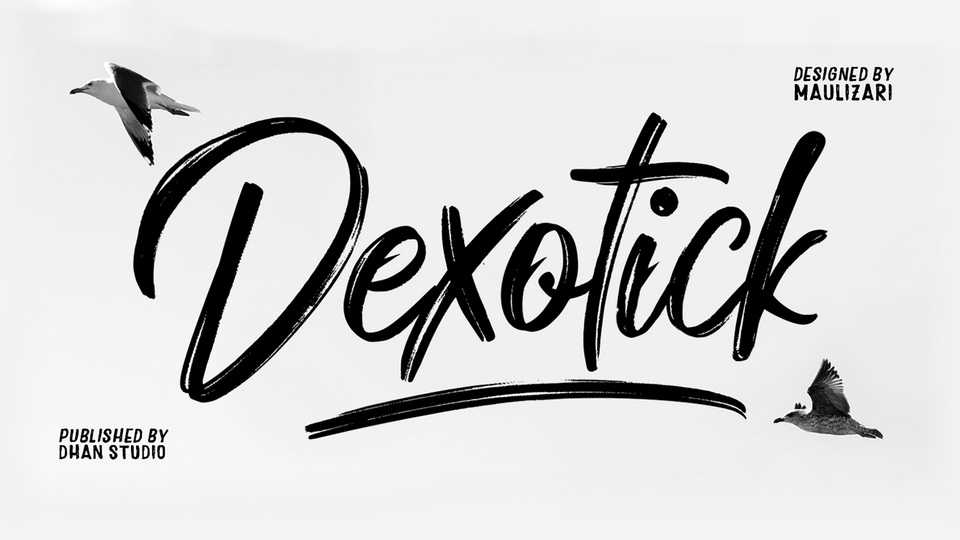
Download Dexotick font, a classy handwritten brush script with a natural texture. Dexotick font has unique characters, there are some letters that are intentionally made without connections so it looks strange but unique and interesting.
Designer: Dhan Studio